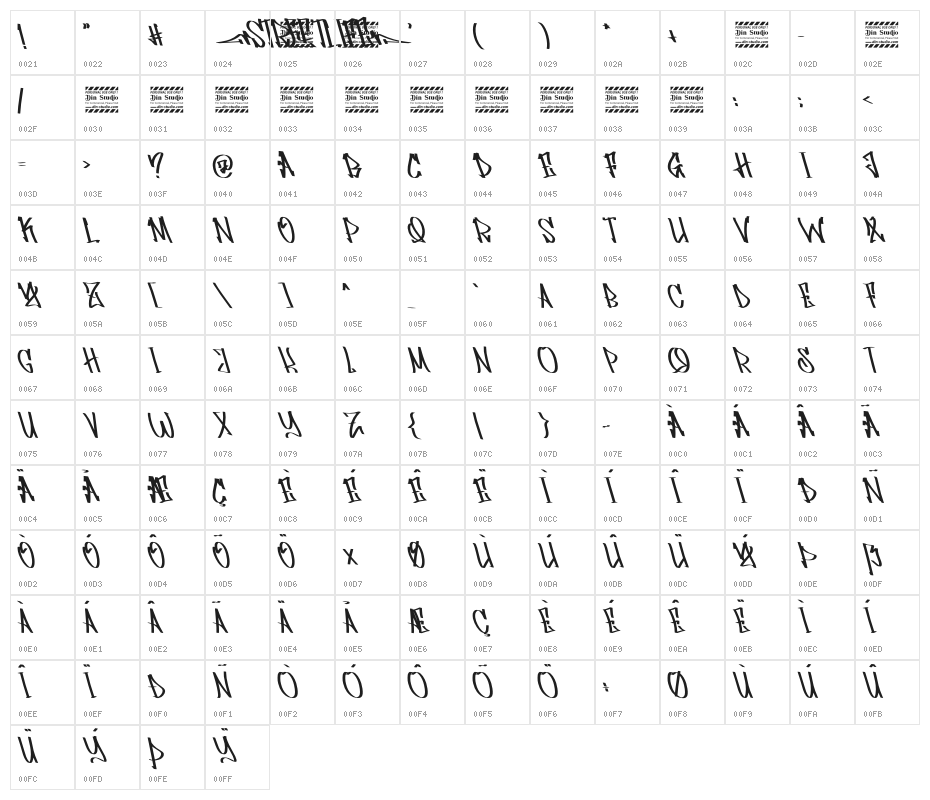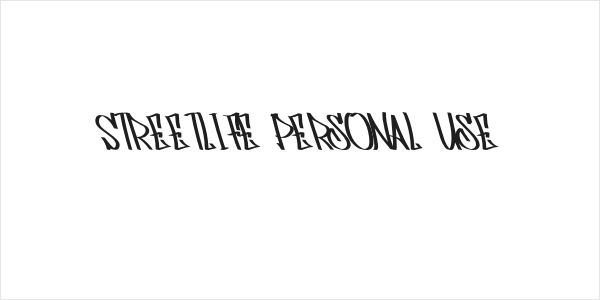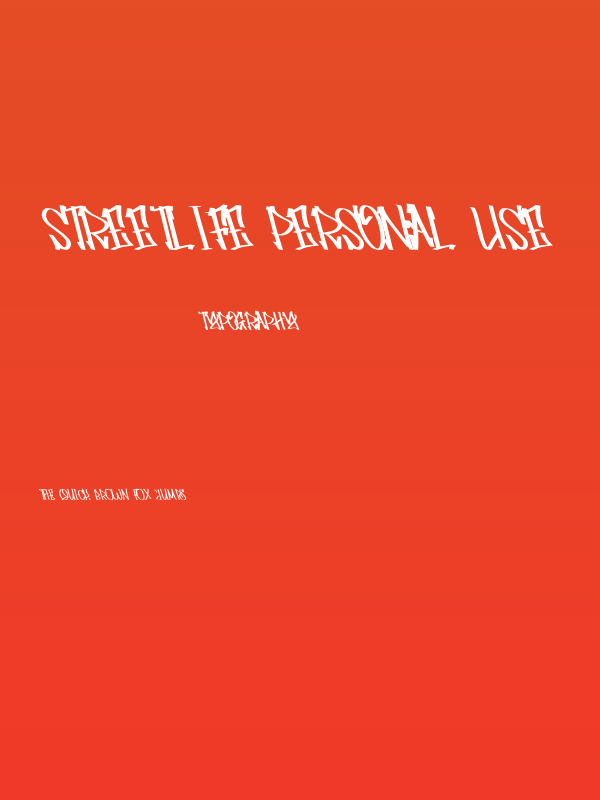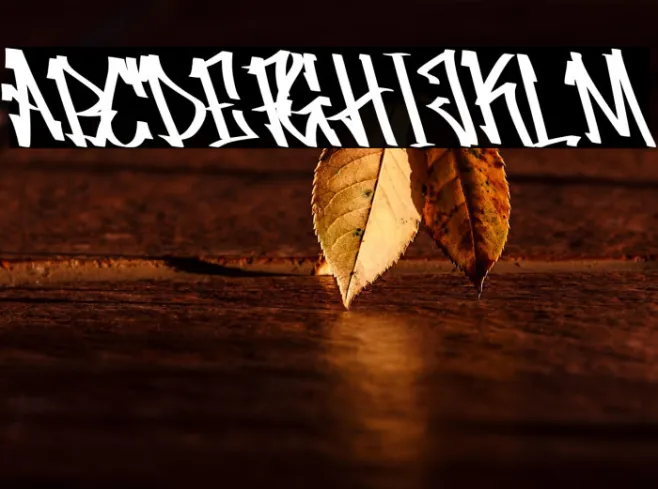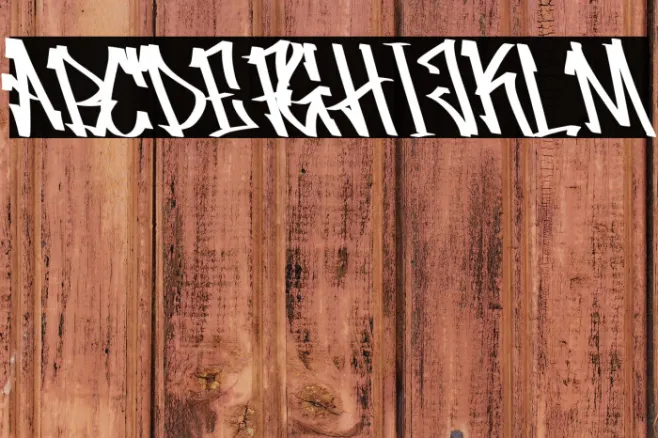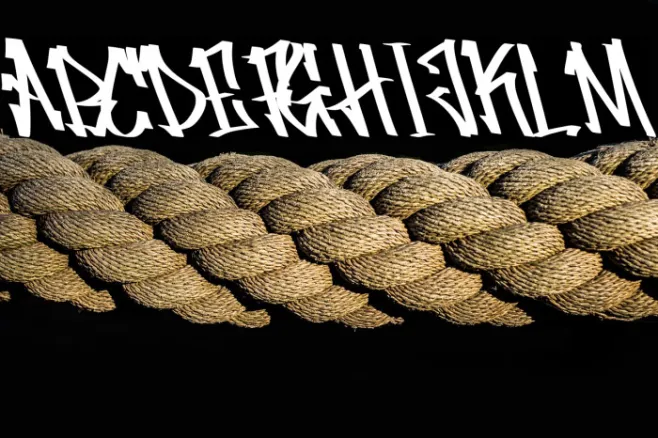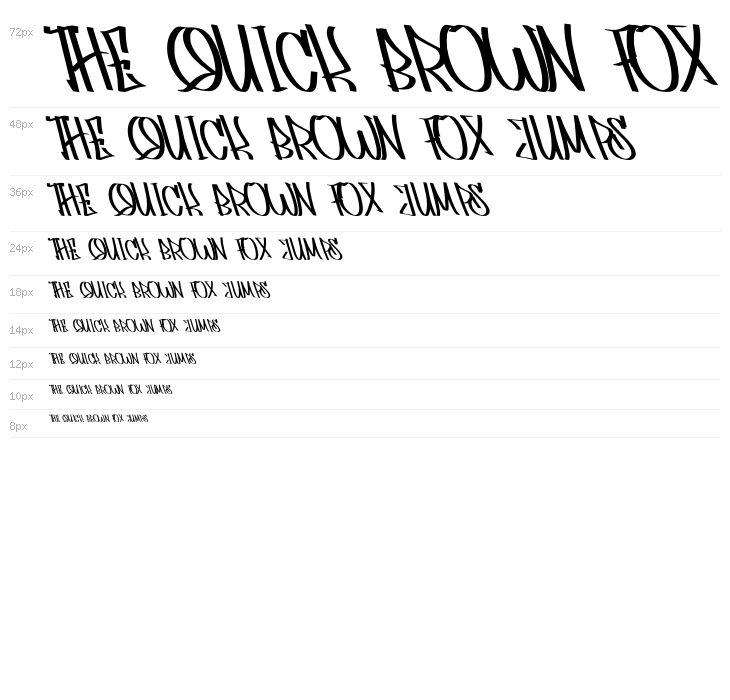
Streetlife Personal use Font
Streetlife Personal use Description
This font features a bold, graffiti-inspired style with sharp, angular lines and a dynamic, energetic appearance. The uppercase and lowercase letters exhibit a sense of movement, with exaggerated curves and slanted orientations that give it a rebellious and urban feel. The characters are tightly spaced, enhancing the compact and impactful nature of the design. The font's high contrast between thick and thin strokes adds to its striking visual presence, making it ideal for attention-grabbing designs. Its unique style is reminiscent of street art and urban culture, making it suitable for projects that aim to convey a sense of edginess and modernity.
| Overall Style | Urban, Modern, Edgy |
| Proposed Projects | Ideal for street art, urban-themed designs, music album covers, and edgy branding projects. |